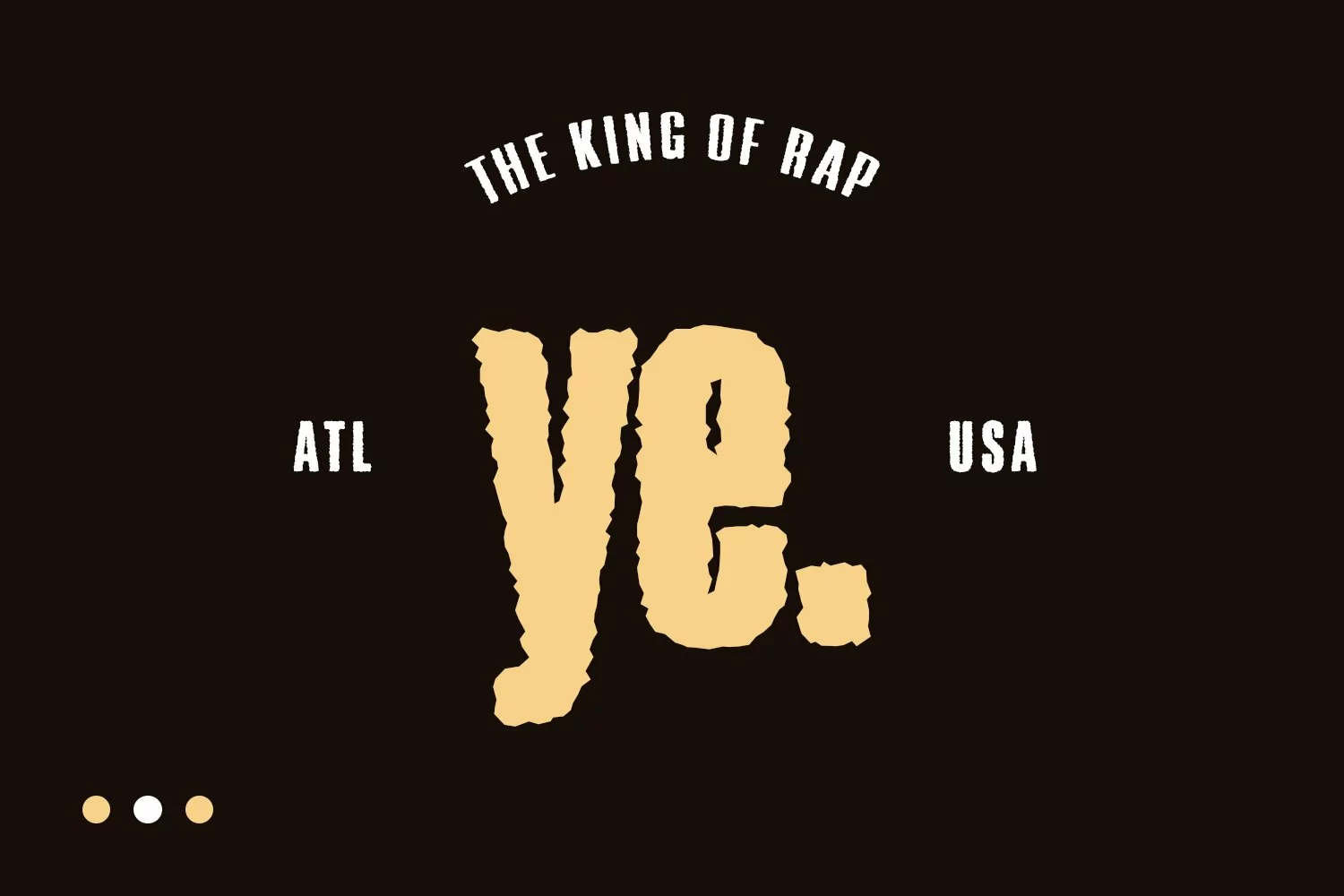
Roughnut is a Display sans serif font. With regular Rough effect stroke, fun character with some of ligatures. To give you an extra creative work. Roughnut font support multilingual more than 100+ language. This font is good for logo design, Social media, Movie Titles, Books Titles, a short text even a long text letter and good for your secondary text font with retro script typeface. Make a stunning work with Roughnut font.